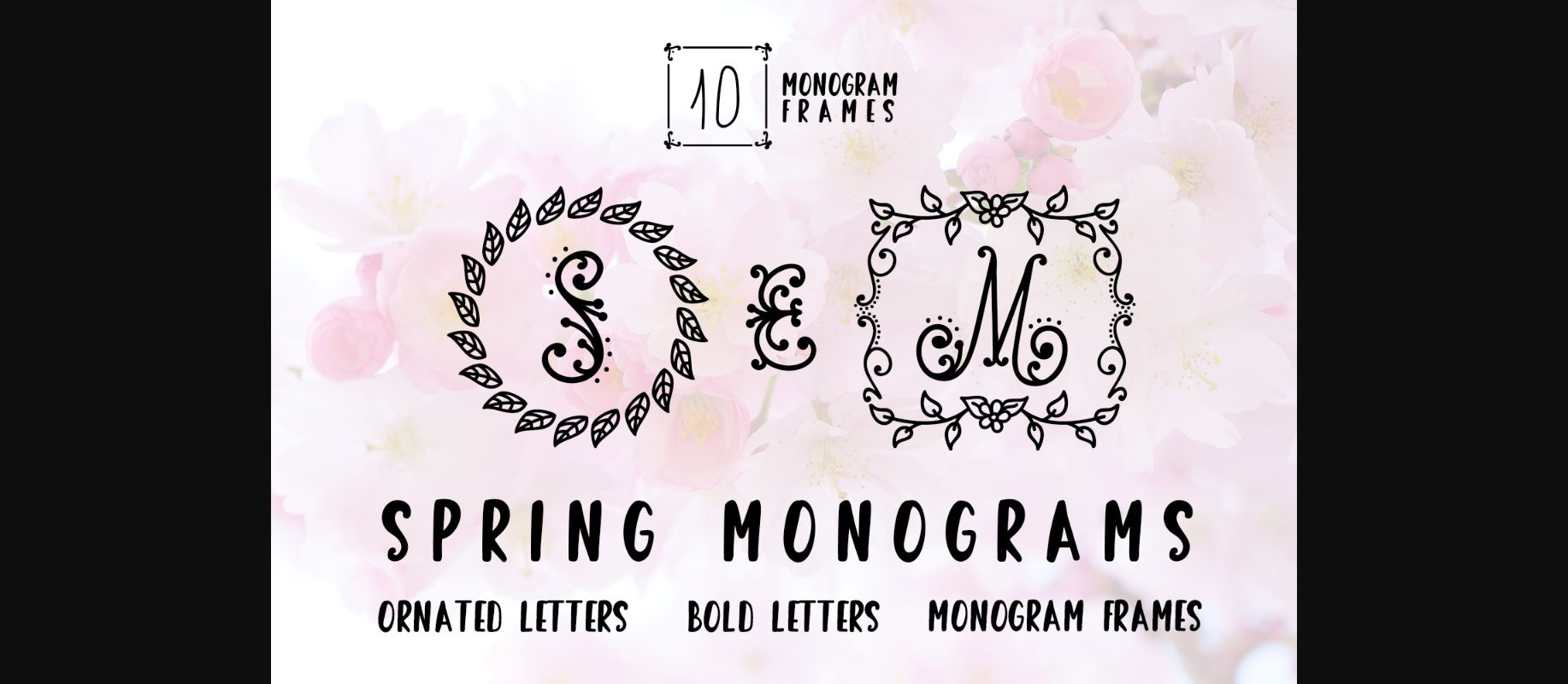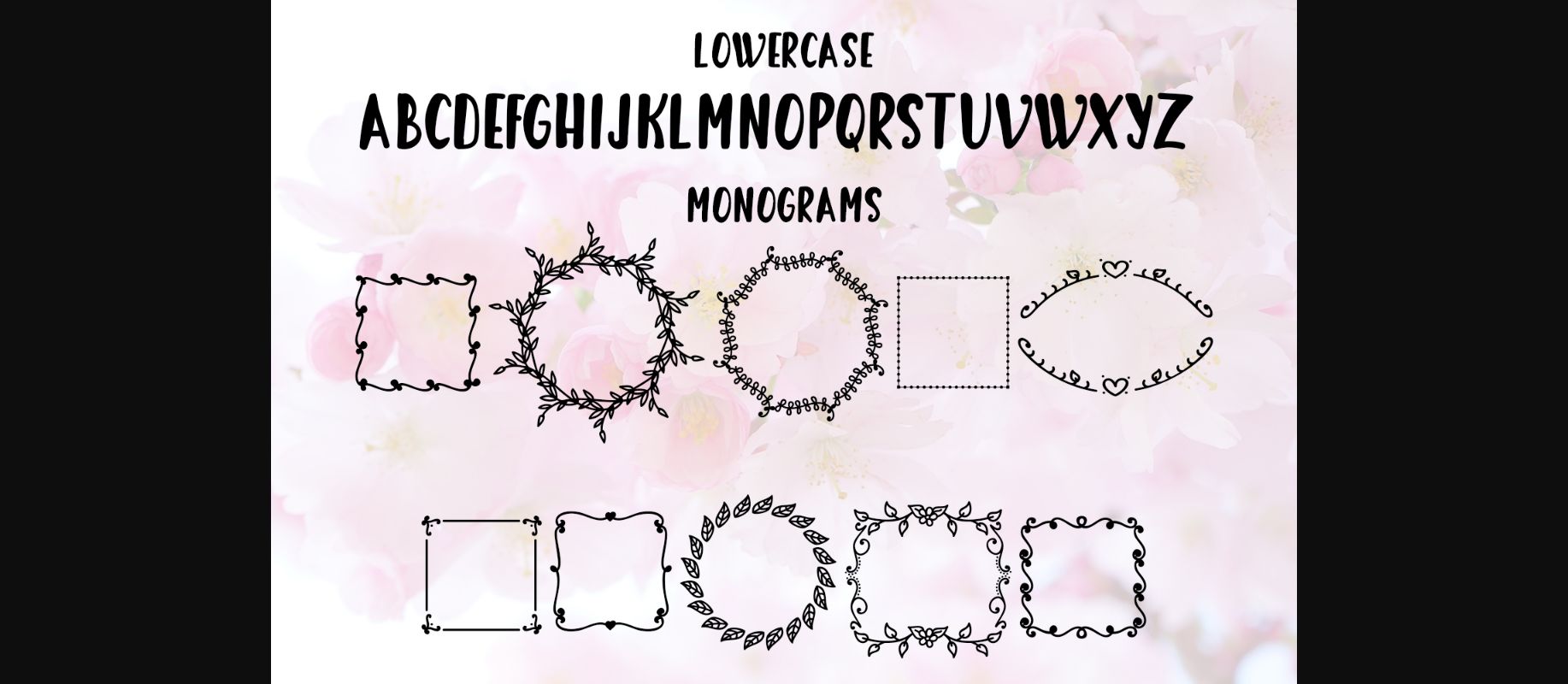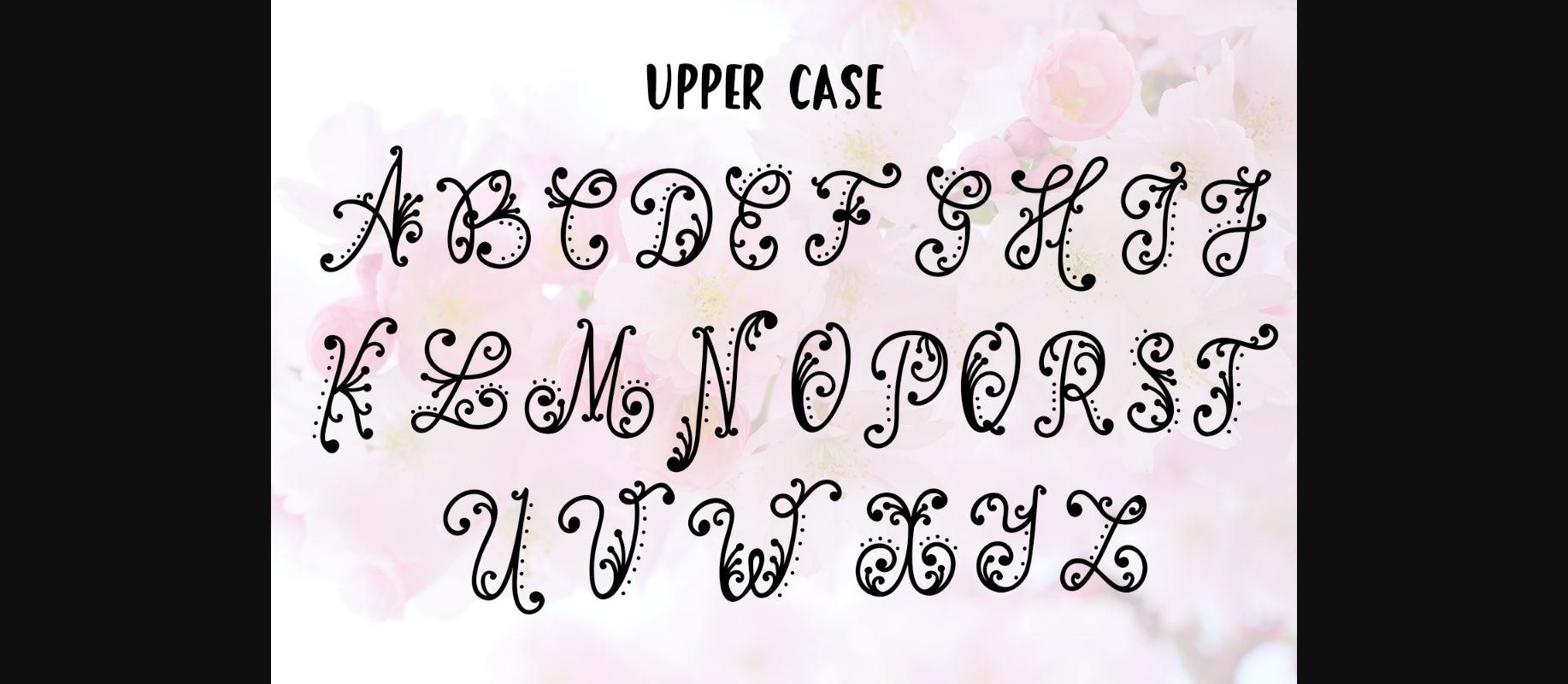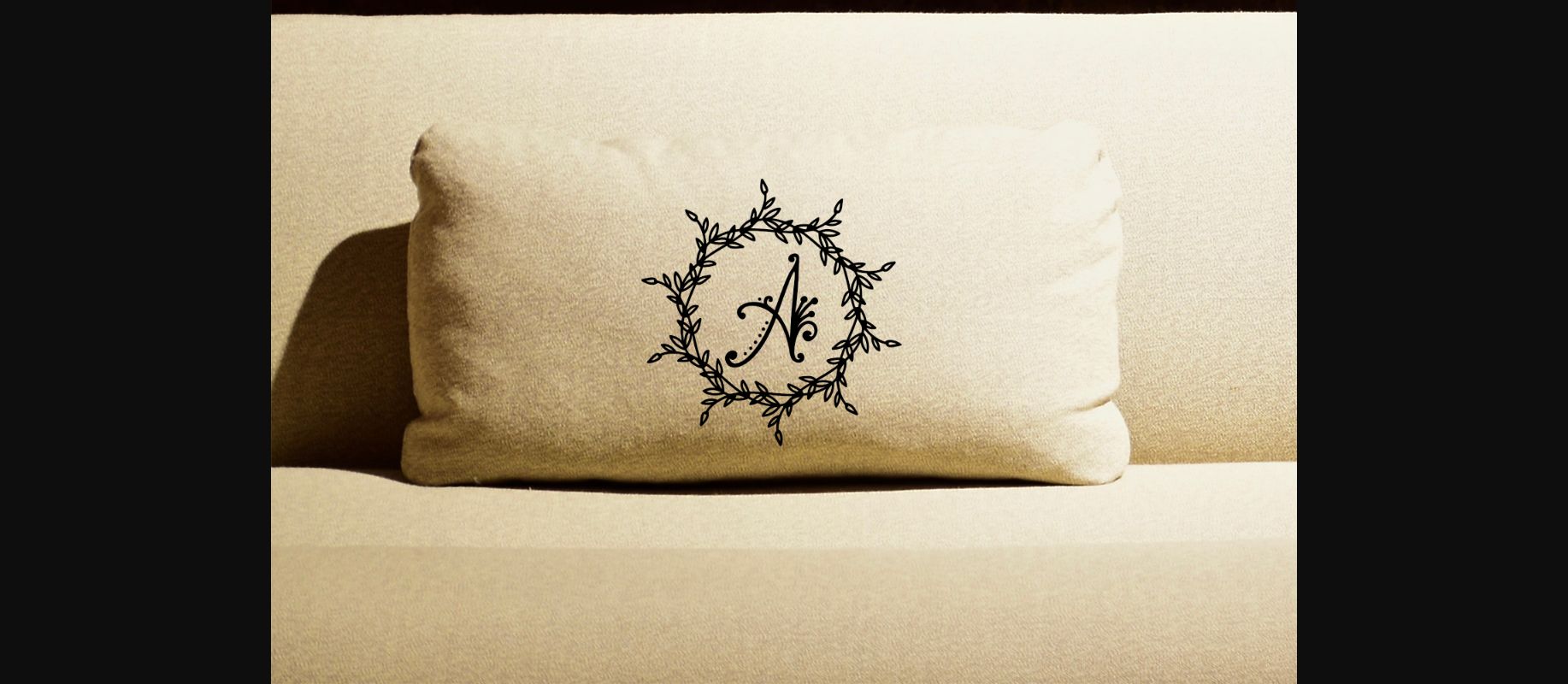
About Spring Monogram Font
The Spring Monogram is an unique decorative font. It includes beautiful decorative letters and a clean hand-lettered display font with a feminine, elegant touch and is perfect for crafting.
Create items like, posters, mugs, shirts, tote bags, vinyl decals, etc.